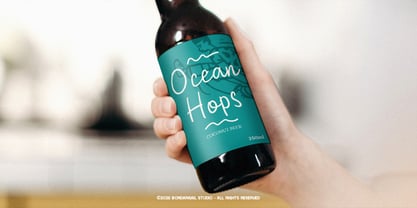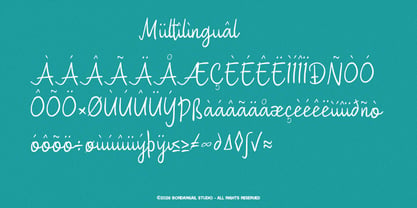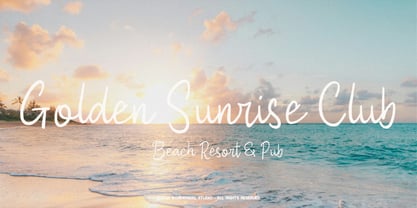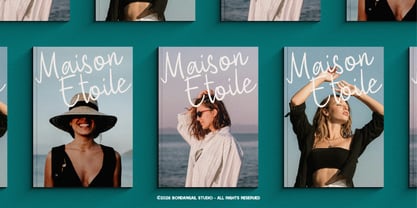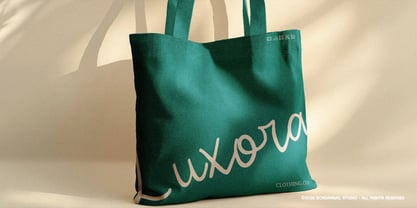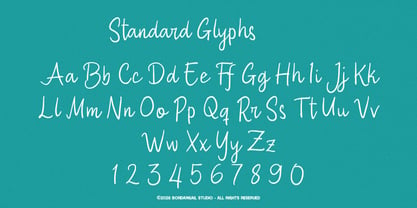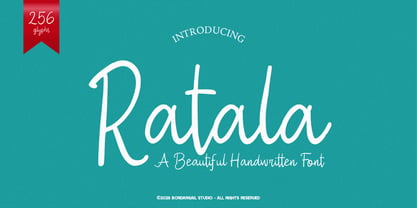
Ratala
La familia tipográfica Ratala fue diseñada por Wahyu Eka Prasetya, Bondan Gail Saputro y publicada por BondanGail. Ratala contiene 1 estilos. Más información sobre esta familia
Ratala is a modern handwritten script font featuring smooth flowing strokes, tall elegant letterforms, and a clean natural handwritten style. Its soft curves and graceful movement create a stylish and friendly appearance, making it perfect for branding, logos, packaging, invitations, social media, beauty products, fashion projects, and feminine designs.
Designed with a balance of elegance and readability, Ratala delivers a handcrafted signature feel that works beautifully for modern creative projects, boutique branding, photography, wedding themes, and contemporary typography.
Ratala Script features:
• 1 Script style
• Uppercase, Lowercase, Numerals, Symbols, and Punctuation
• Multilingual support